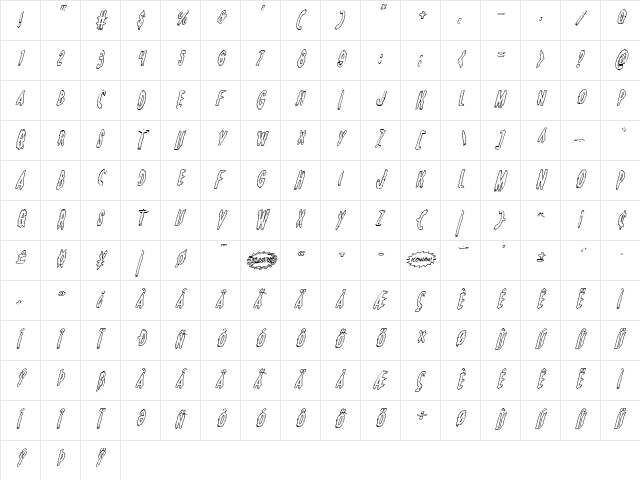
Monsterama Outline Italic Italic
Design Context for Monsterama Outline Italic Typeface
Monsterama Outline Italic is built around its visual character rather than neutral utility — its distinctive forms are designed to make an impression at display sizes. Its italic angle brings a sense of urgency and motion to the letterforms.
Font Pairing: Pair with a clean neutral sans-serif for body copy to let Monsterama Outline Italic's character lead without overwhelming the composition.
Pro Tip: Treat Monsterama Outline Italic as the centrepiece of your typographic hierarchy. One strong heading set in a decorative face can carry an entire layout.